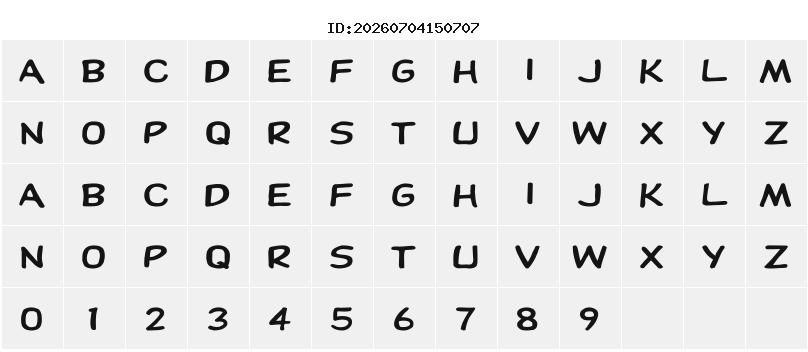
DupuyHeavy Ex Preview
• Font Name: DupuyHeavy Ex
• Full Font Name: DupuyHeavy Ex
About DupuyHeavy Ex.ttf
DupuyHeavy Ex.ttf is a modern, elegant sans-serif font designed for ultimate readability and visual harmony. Perfect for branding, headlines, web design, and print materials.